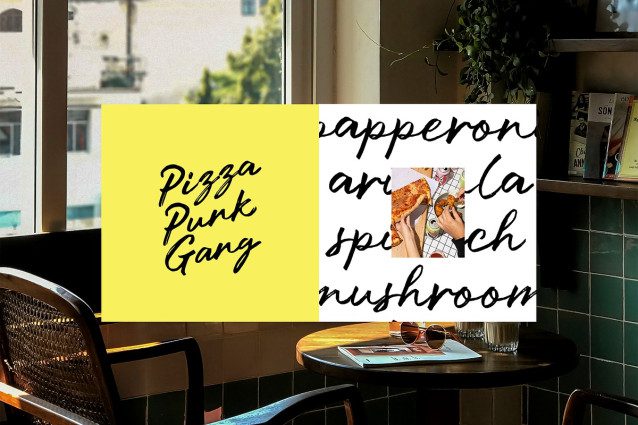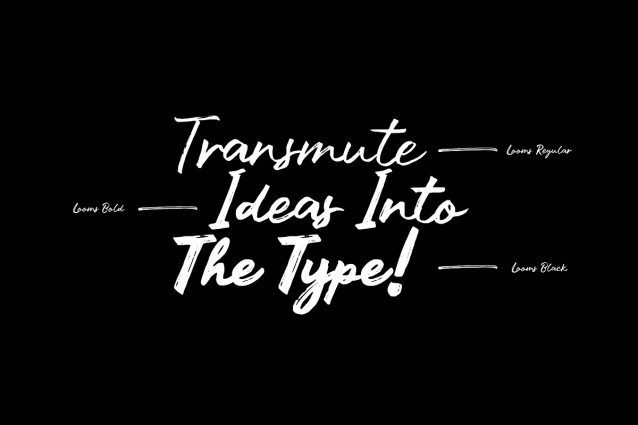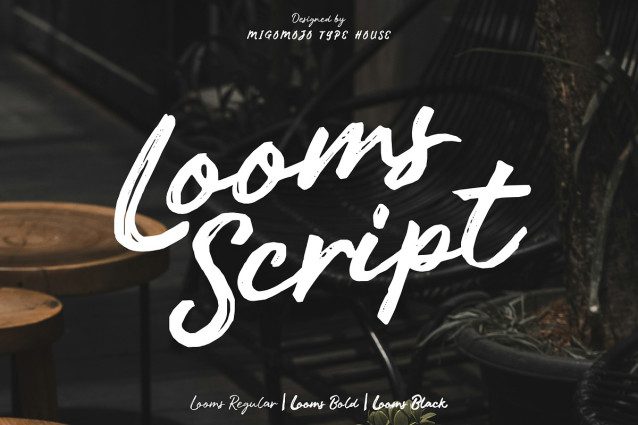
Looms Script Font
Looms Script Font is a brush script display font that combines artistic flair with functionality, brings an organic and fun vibe to your creative projects. With its casual and raw aesthetic, Looms adds a friendly and approachable feels, whether you’re designing labels for handcrafted goods or creating travel-themed graphics, Looms effortlessly conveys a sense of adventure and creativity.
With over 300+ glyphs, Looms supports multilingual text, ensuring that your message is heard loud and clear across different languages. Its swashes and expressive letterforms create a dynamic look, making every project feel unique and engaging.